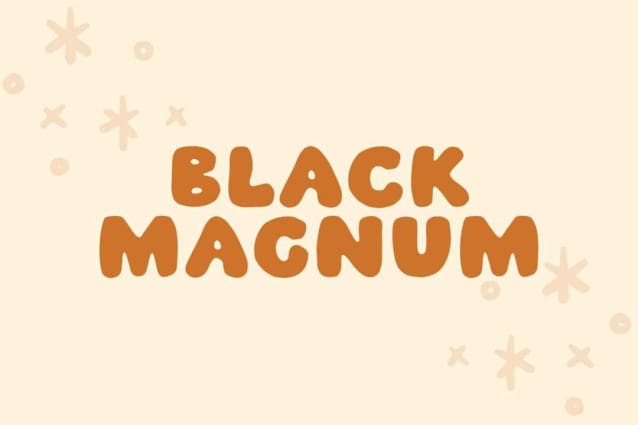
Black Magnum Font
Black Magnum Font is a chunky, comic, and cartoon display font. With its neat and joyful personality, this font will enhance any project you wish to create!